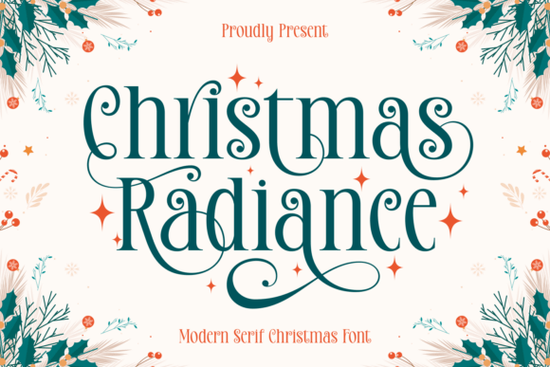
Christmas Radiance is a modern serif font designed for holiday projects that need a refined, festive look. It pairs classic serif details with graceful swashes and decorative accents, so your seasonal designs feel polished without looking outdated. Whether you're working on cards, invitations, or branded packaging, this Christmas Radiance typeface brings a warm, celebratory tone to the page.
What kind of projects work best with this font?
This modern serif holiday font was built with a wide range of seasonal uses in mind. Here are some of the most common applications:
- Holiday cards and invitations The swashes and curves give greeting cards a handcrafted, personal feel.
- Gift tags and labels Clean letterforms stay readable even at smaller sizes.
- Social media graphics Instagram posts, Pinterest pins, and Facebook banners all benefit from a festive serif.
- Seasonal branding Small businesses can use it for holiday menus, sale signage, and promotional materials.
- Print-on-demand products Mugs, tote bags, and apparel with Christmas quotes look sharp with a well-designed serif.
- Decorative wall art and quotes The ornamental accents add just enough detail to make typographic prints stand out.
How is it different from other Christmas fonts?
Plenty of holiday fonts lean heavily on novelty candy cane stripes, snowflake shapes, or overly playful lettering. Christmas Radiance takes a different approach. It stays grounded in traditional serif design while adding subtle festive flourishes. The result is a typeface that feels seasonal without becoming a one-trick design element.
The swashes are graceful rather than exaggerated, and the curves have a natural flow that works across both large display text and smaller body copy. If you've worked with Brave Treat for playful projects, Christmas Radiance offers a more understated counterpart suited to elegant holiday work.
Can you pair it with other fonts?
Yes and you should. Christmas Radiance works well as a heading or display font paired with a simpler typeface for contrast. Here are a few ideas:
- Use it for headings alongside a clean sans-serif for body text on holiday menus or flyers.
- Pair it with a hand-lettered script for layered card designs where you want both elegance and personality.
- Combine it with Grunge Project for a rustic Christmas aesthetic the rough, textured display style adds strong visual contrast.
For projects that call for a sporty or casual holiday twist say, a family Christmas sweater design Athletic Varsity pairs nicely. You can check out this varsity-style display font for designs that lean more casual and energetic.
Does it work for print-on-demand sellers?
Yes, and this is where it really shines. POD sellers need fonts that are versatile, legible, and visually strong enough to carry a product design on their own. Christmas Radiance checks those boxes.
Common POD uses include:
- Holiday quote designs on mugs and tumblers
- Christmas-themed t-shirt typography
- Seasonal tote bag graphics
- Greeting card templates for Etsy or similar marketplaces
Its clean rendering means it reproduces well across different printing methods, including sublimation, DTG, and screen printing.
What if you want a more rugged or handcrafted feel?
Not every holiday project calls for elegance. If your design style leans more organic or textured, consider mixing Christmas Radiance with typefaces that have a raw, handmade quality. Distressed Creative works well for this the distressed display typeface balances out the polish and gives your layout more depth. This kind of contrast works especially well on rustic holiday packaging, farmhouse-style wall art, and vintage-inspired social media graphics.
You could also pair Christmas Radiance with a bold decorative option when you want the headings to feel more playful while keeping the supporting text refined.
Quick checklist before you start designing
- ✅ Decide where the font will appear headings, body text, or standalone quotes
- ✅ Test it at the actual size you'll use to confirm readability
- ✅ Pair it with one complementary font avoid using more than two or three typefaces in a single design
Christmas Radiance gives you a polished serif option that works across many holiday design situations. It's not trying to be everything it's focused on clean, elegant festive typography that pairs well with other styles and holds up across both print and digital formats.